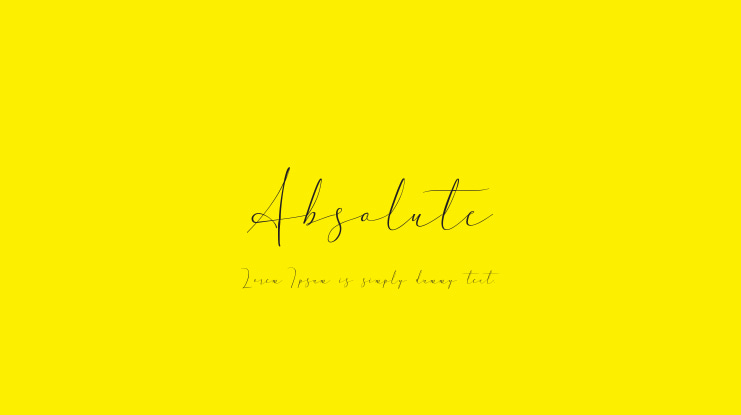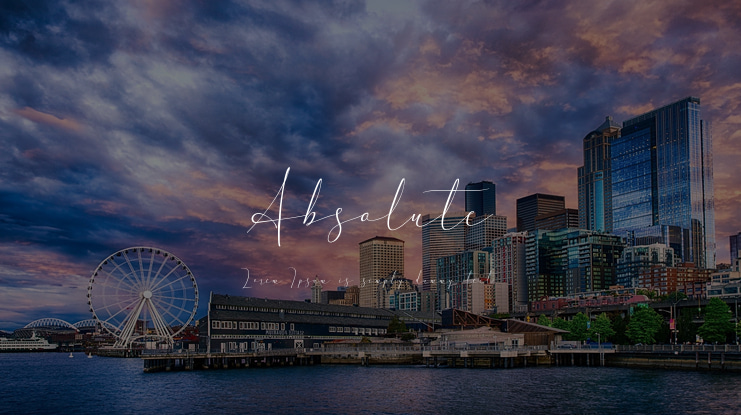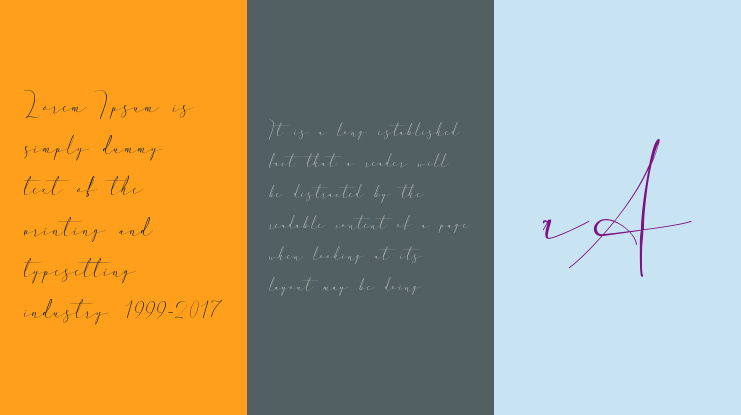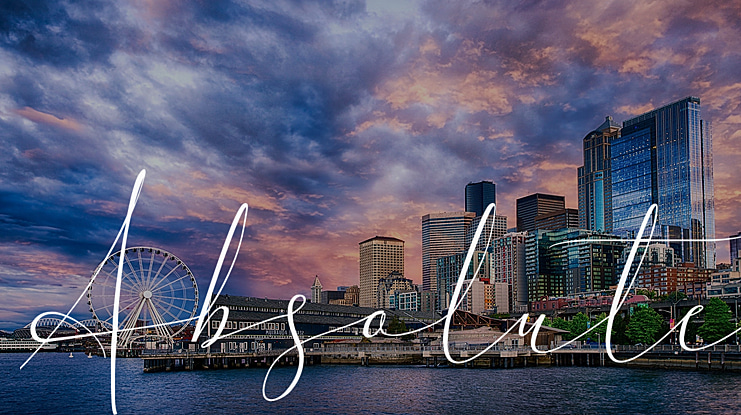
Absolute Font
Absolute Modern Calligraphy. This font was designed by handwriting, and it has a modern and unique forms of calligraphy, the writing style is very natural. Absolute has a very unique style of calligraphy, it is very suitable for use in the work of modern design. Can be used for various purposes.such as headings, logos, wedding invitation, t-shirt, letterhead, lable, news, posters, badges etc. To enable the OpenType Stylistic alternates, you need a program that supports OpenType features such as Adobe Illustrator CS, Adobe Indesign & CorelDraw X6-X7.a font that made the hand by having the character up and down like a dancer. Absolute has a very unique style of calligraphy, it is very suitable for use in the work of modern design